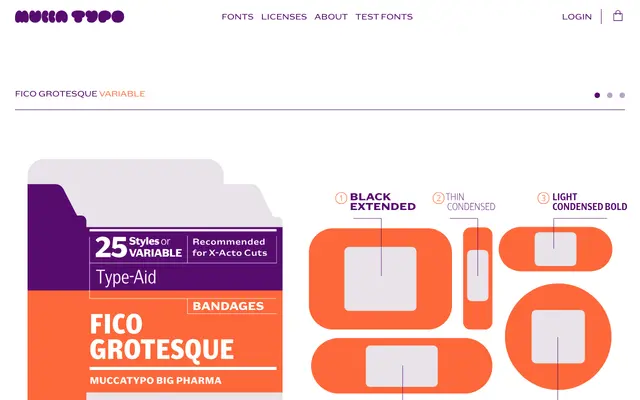
Fico Grotesque
A variable grotesque spanning five widths and five weights across 26 static styles, with OpenType features including stylistic sets, tabular figures and case-sensitive forms.
The family runs from Condensed to Extended across Thin, Light, Regular, Bold and Black, giving 25 static styles plus a variable font with continuous width and weight axes. OpenType support covers proportional and tabular figures, ordinals and three stylistic sets, making it adaptable for both display and text applications. The pharmaceutical-named specimen settings suggest a clinical or functional design sensibility.
A grotesque sans-serif with a variable axis spanning five widths from Condensed to Extended and five weights from Thin to Black, offering a broad range of static styles typical of contemporary grotesque superfamilies.